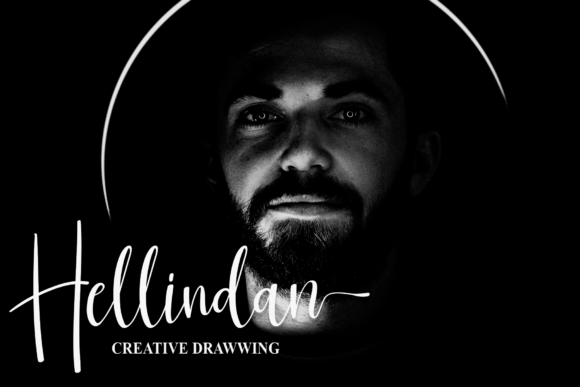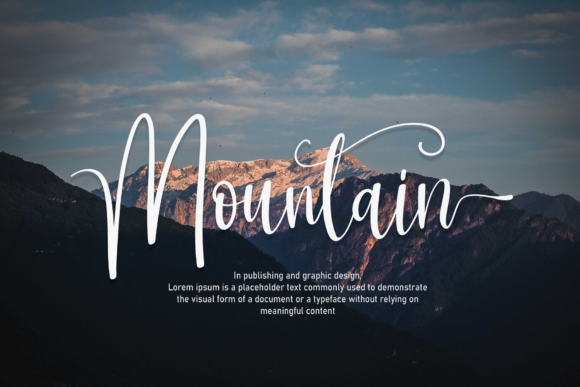
American Font
db-ku.com - Script & Handwritten -- American is a cursive and stylish handwritten font that looks modern and natural. Use it to create outstanding wall displays, wedding invitations, social media post logos, advertisements, product packaging, product designs, labels, photography, watermarks, invitations, stationery, and any project that requires unique typography.